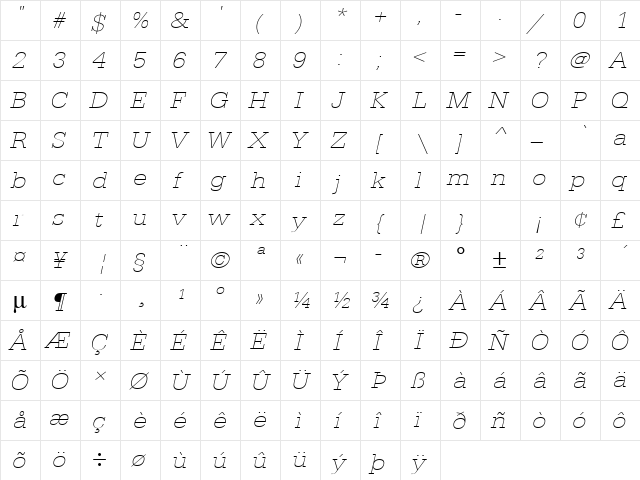
URWEgyptienneTExtLigExtWid Oblique
Design Context for URWEgyptienneTExtLigExtWid Typeface
URWEgyptienneTExtLigExtWid takes a measured approach to typography — its balanced proportions and neutral character make it a reliable workhorse for both digital and print work. Its italic angle brings a sense of urgency and motion to the letterforms.